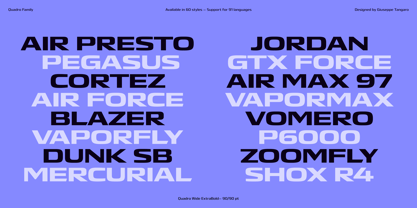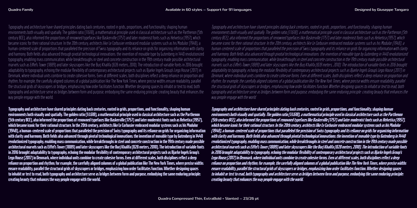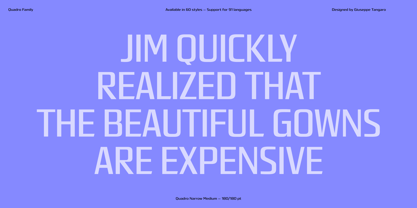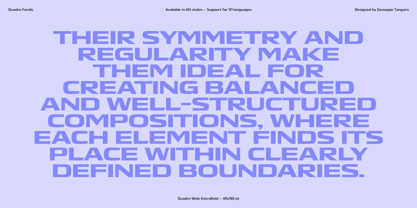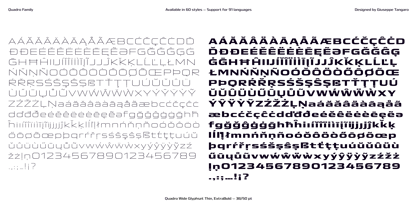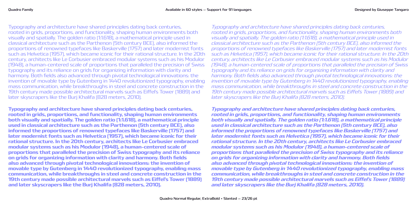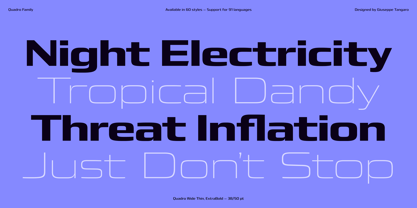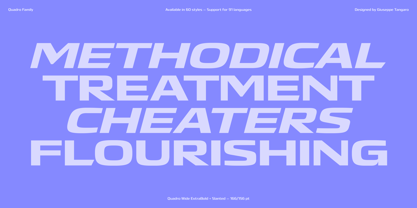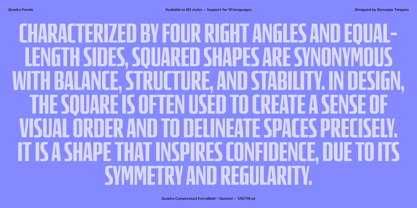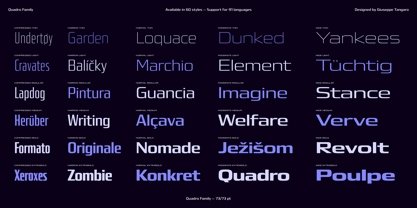
Quadro
by Blaze Type
The Quadro Font Family was designed by Giuseppe Tangaro and published by Blaze Type. Quadro contains 60 styles and family package options. More about this family
Quadro is a squared variable sans-serif typeface designed for exceptional versatility across a wide range of contexts. With five widths (Compressed, Narrow, Normal, Moderate, and Wide) and six weights (Thin, Light, Regular, Medium, Bold, and ExtraBold), it is ideal for various design applications from corporate communications to fashion design, retail visual identity creation to digital interfaces for mobile devices. Its clean, geometric structure ensures a powerful visual impact, whether in smaller text or large, high-visibility headlines.
The variable font also includes a parameter for Slanted weights, allowing you to adjust the angle of inclination to your preferred style. This feature offers dynamic, personalized expression without compromising readability, unlocking new creative possibilities. Supporting over 91 languages, it is perfect for international projects while maintaining a refined, sophisticated look.
Designed by Giuseppe Tangaro, this typeface meets typographic needs with precision across all platforms and devices, delivering flawless results in both print and digital formats.